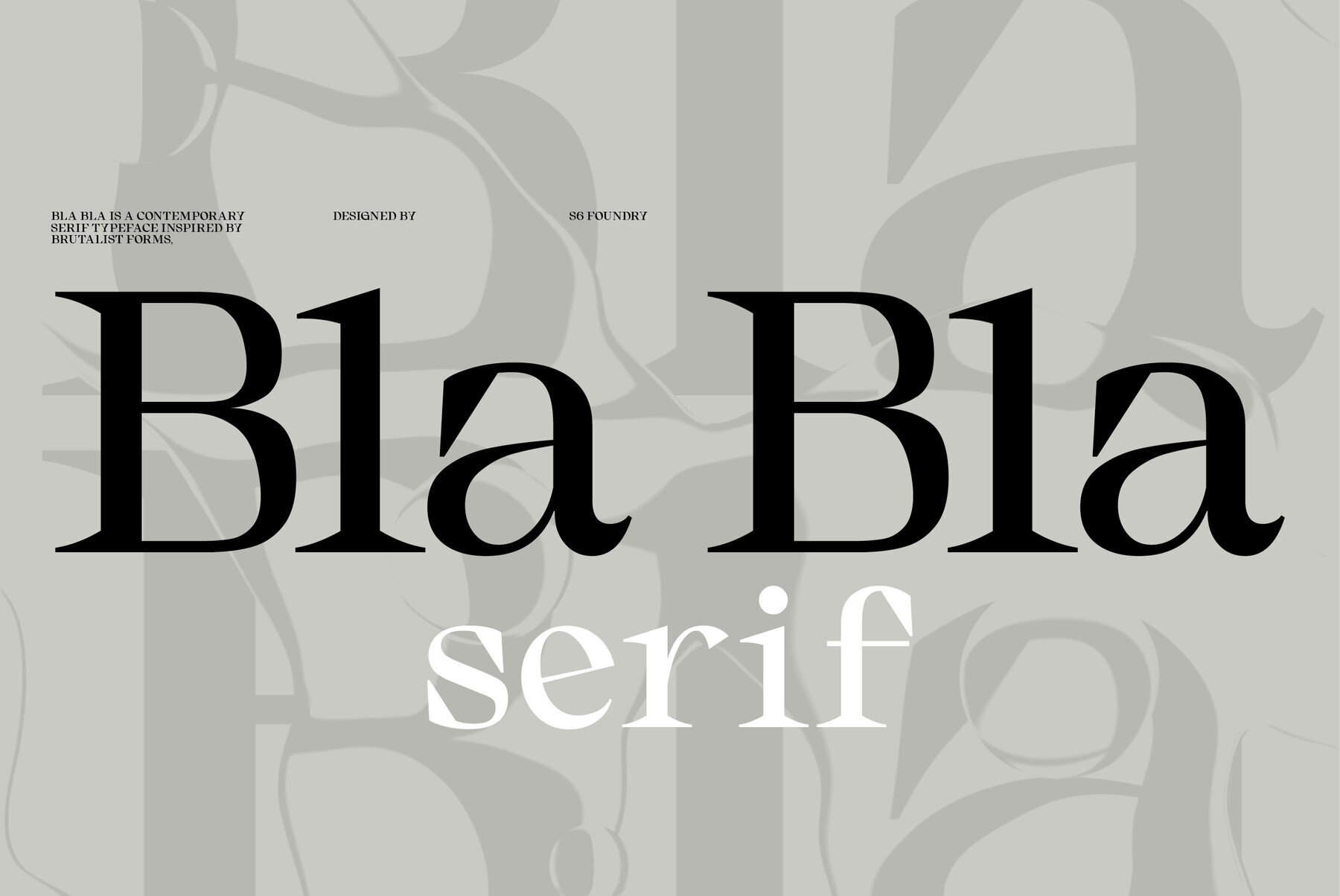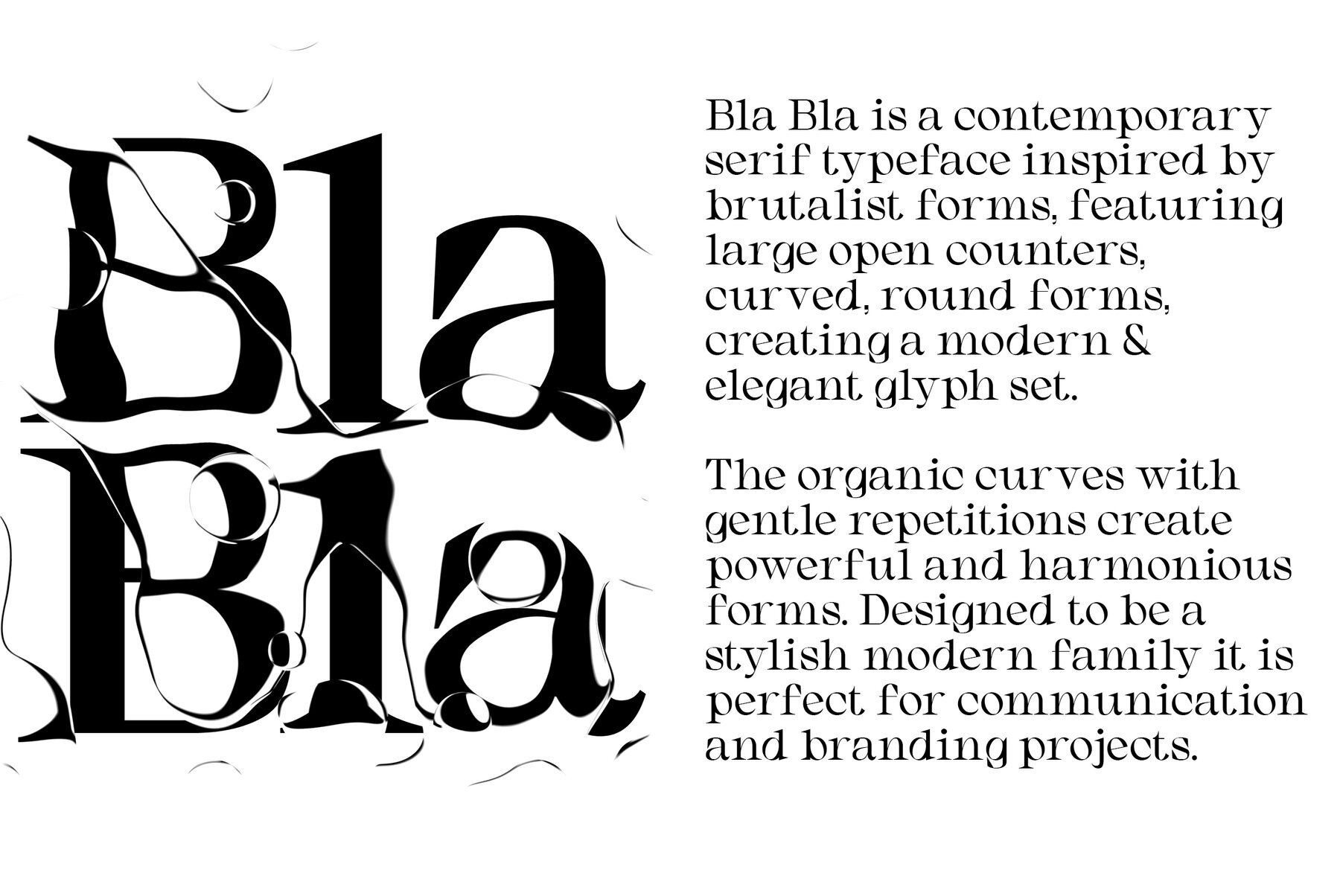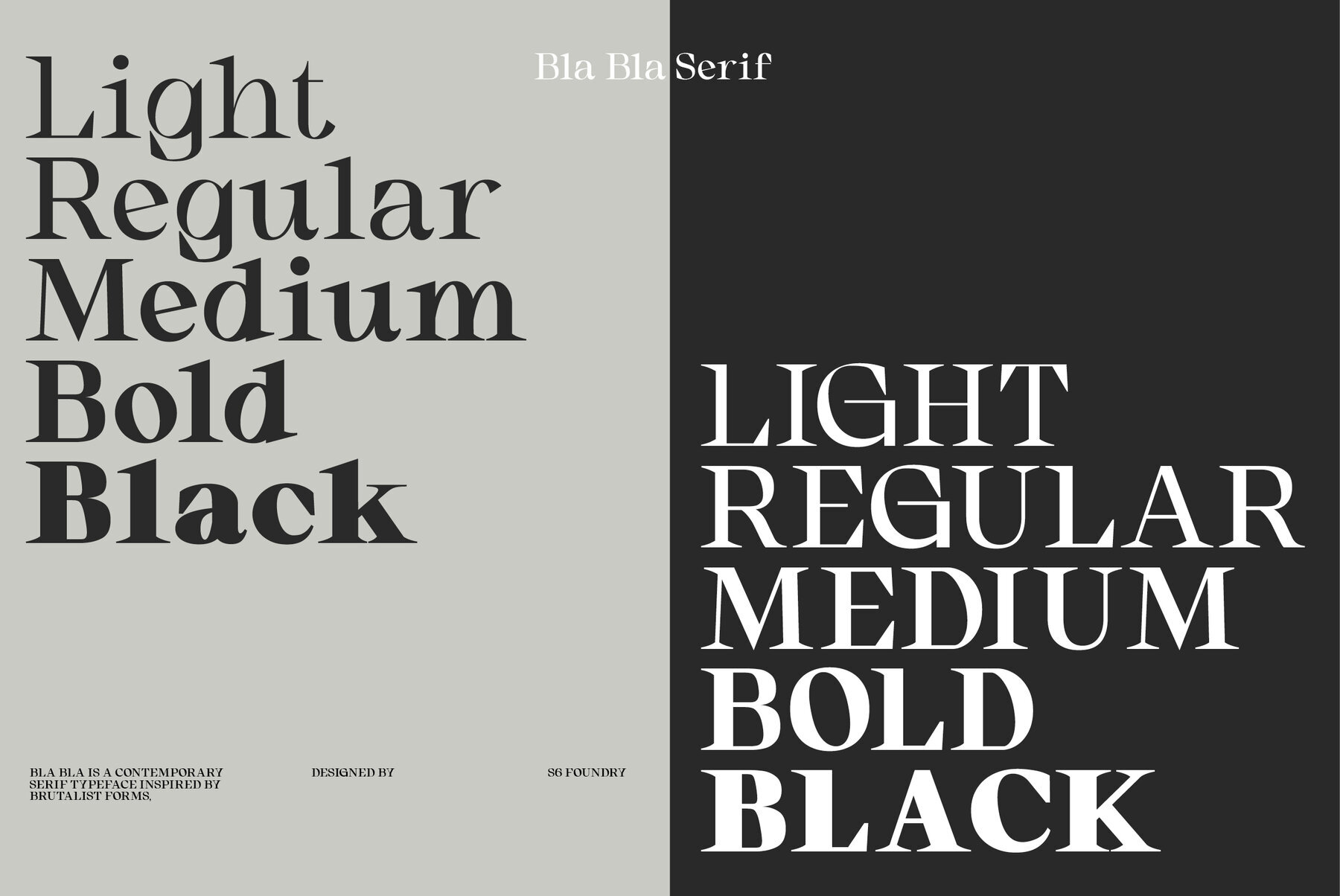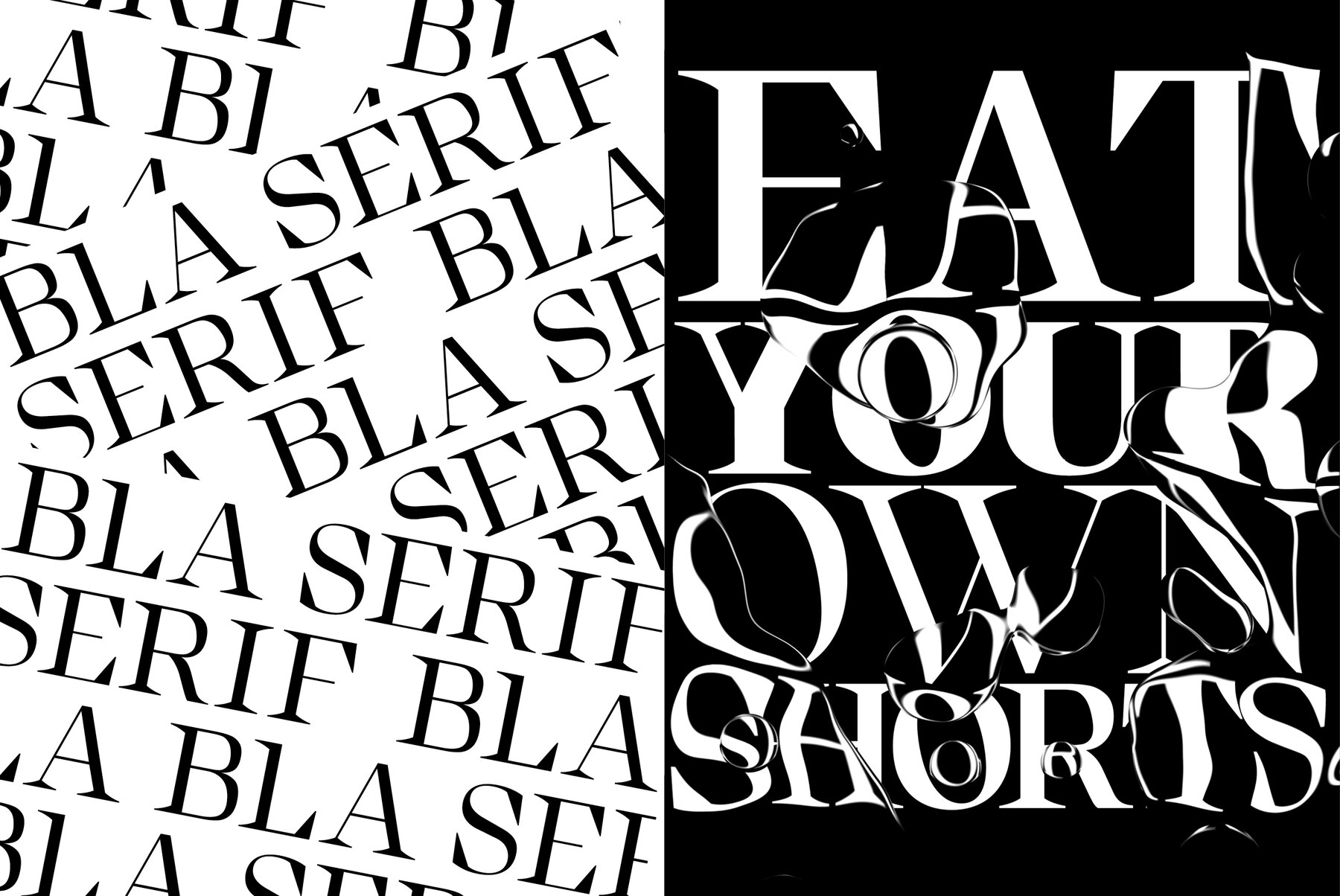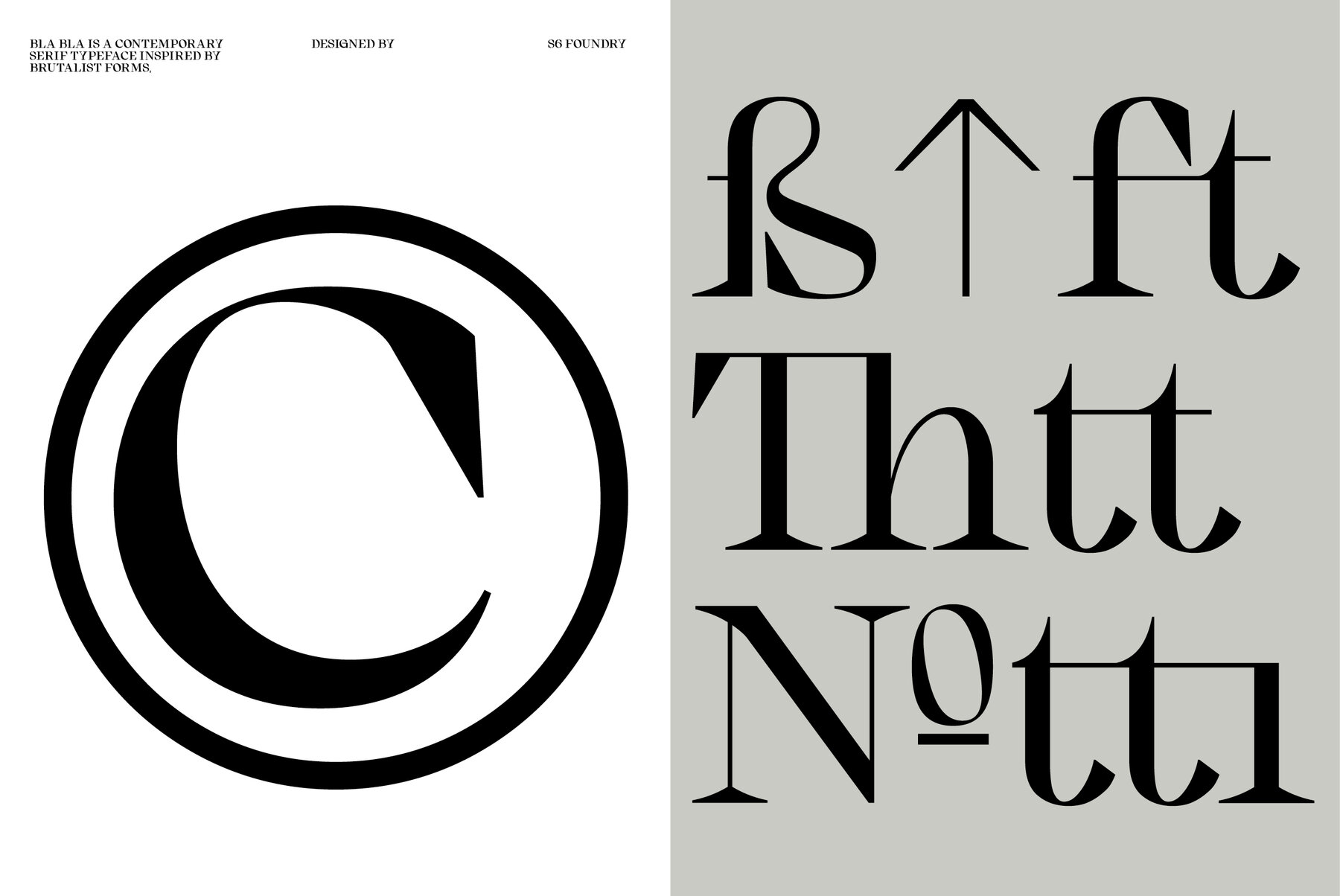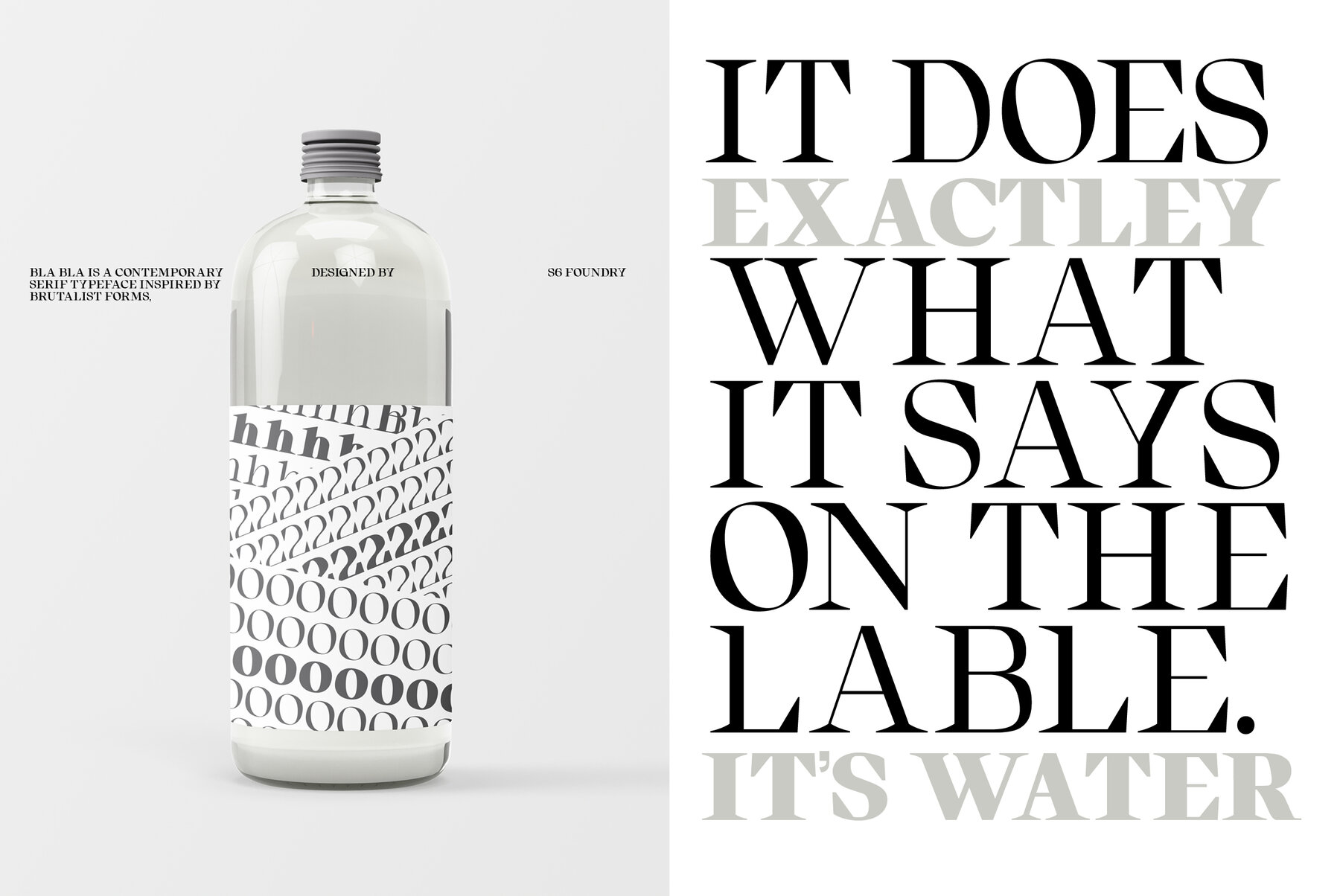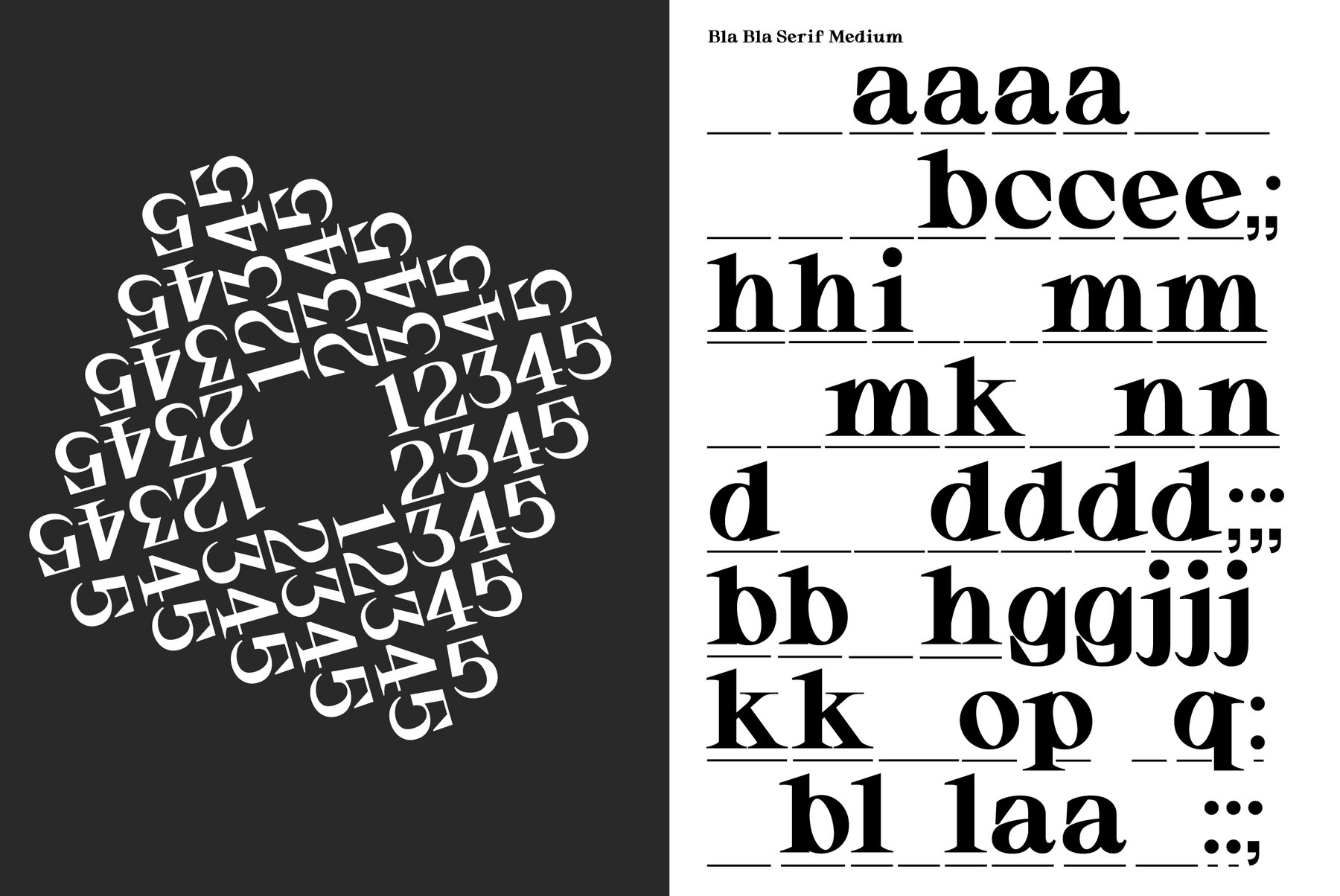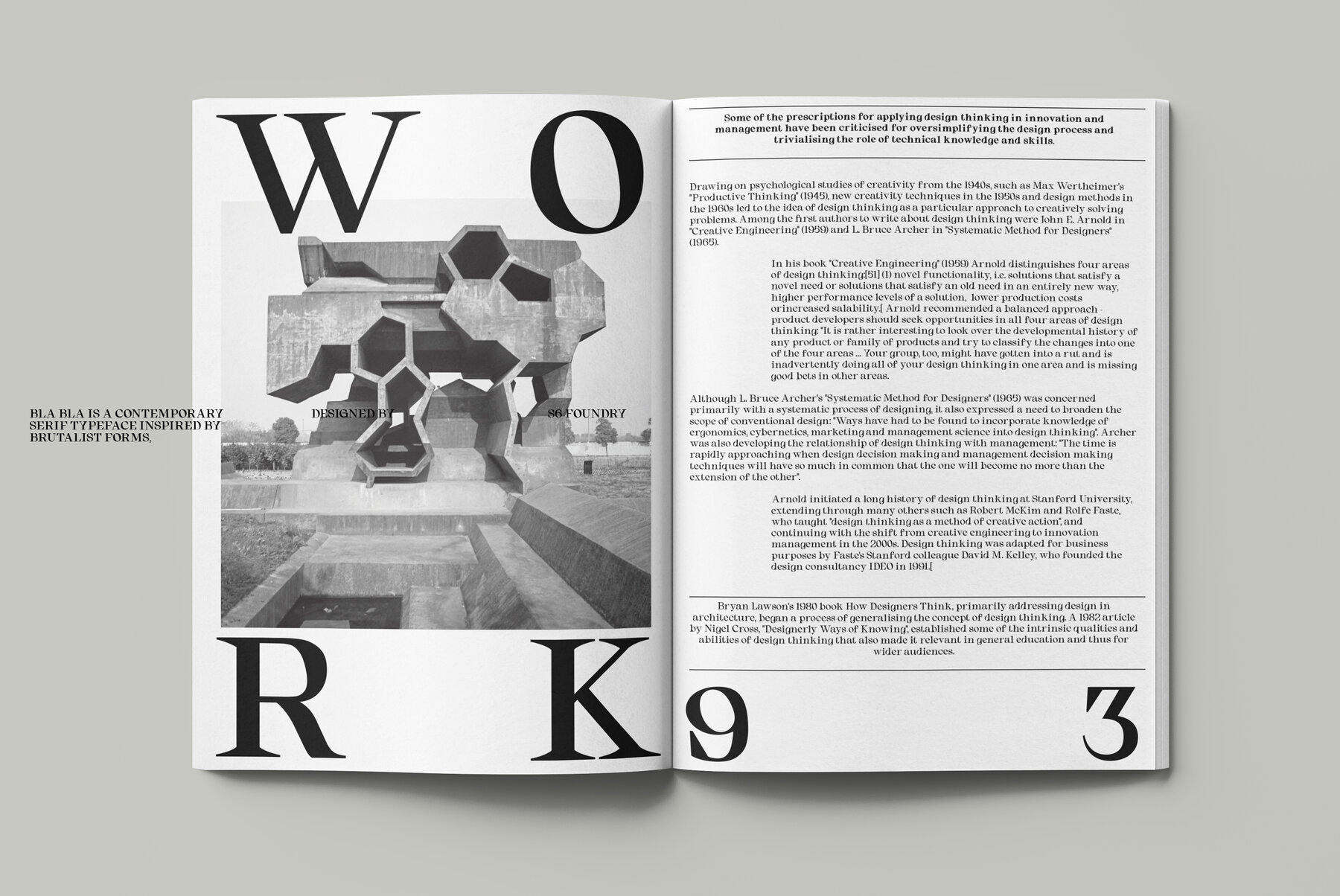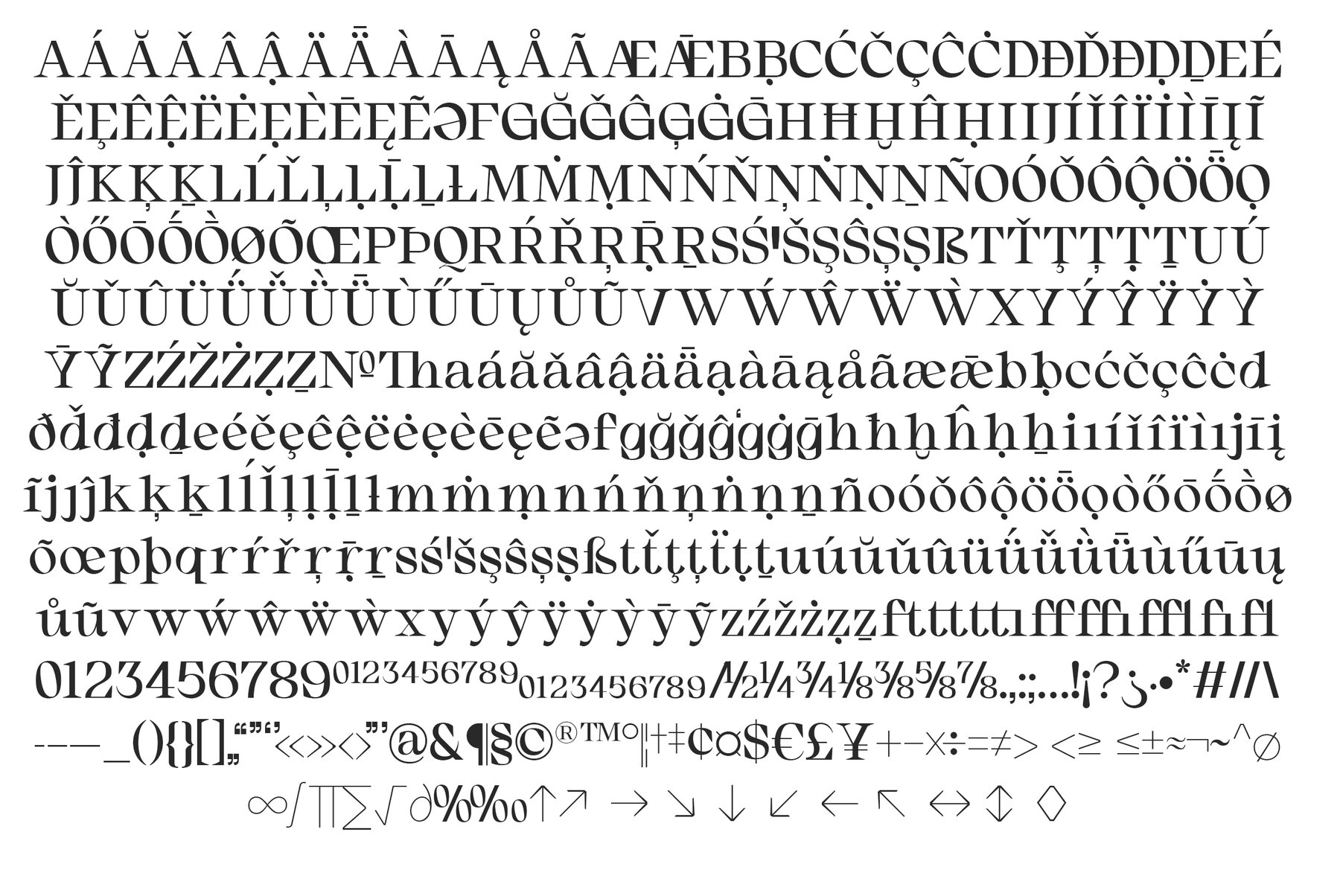
Bla Bla is a contemporary serif typeface inspired by brutalist forms, featuring large open counters, curved, round forms, creating a modern & elegant glyph set. The organic curves with gentle repetitions create powerful and harmonious forms. Designed to be a stylish modern family it is perfect for communication and branding projects.